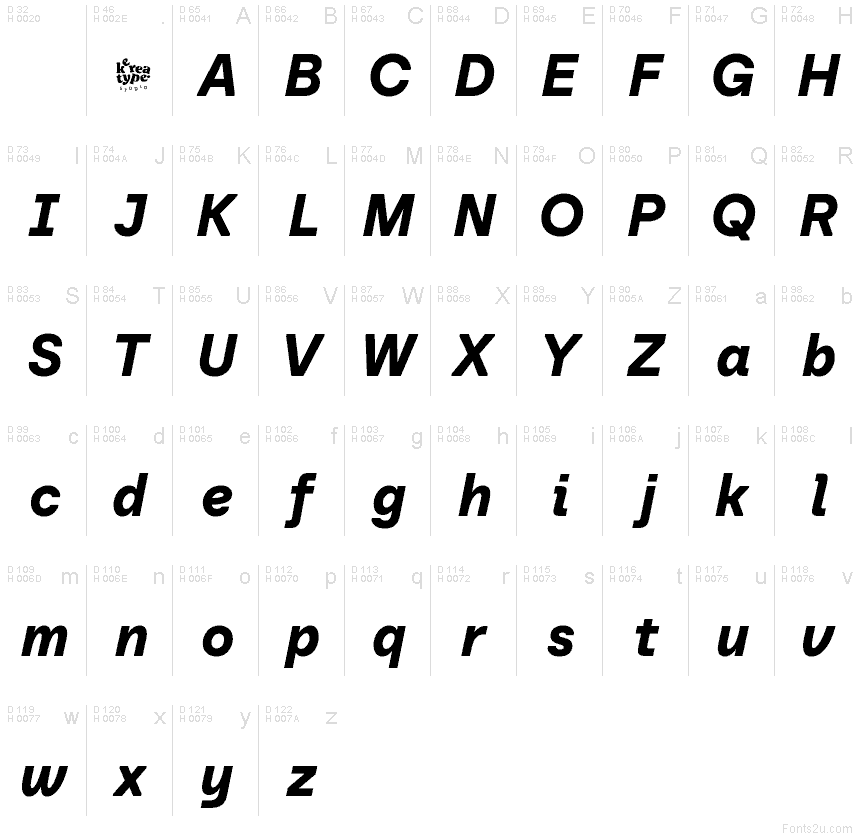
Baru Sans Demo ExtBd Ita
Baru Sans ExtBd Italic font by Kereatype Studio is a free extended bold italic sans serif typeface. Part of the Baru Sans family, it hits with a wide stance and a confident forward slant—thick strokes, smooth curves, and open shapes that read fast while looking turbo-charged. It feels punchy and modern, the kind of weight that lays down solid ink coverage yet keeps letters clean and breathable.
Using Baru Sans ExtBd Italic, you get instant momentum for sports branding, racing posters, headline banners, YouTube thumbnails, product packaging, and event graphics. The generous width builds authority, while the italic angle adds snap and speed, making short lines and names unforgettable. For balance, pair it with Baru Sans Regular for text, and tighten tracking slightly at large sizes to lock in that high-impact rhythm. This free font brings energy without sacrificing clarity.